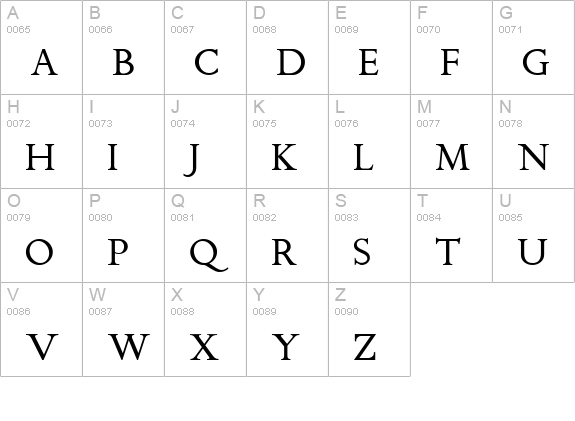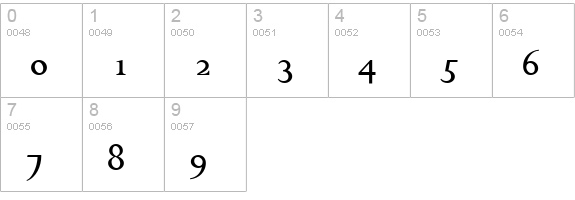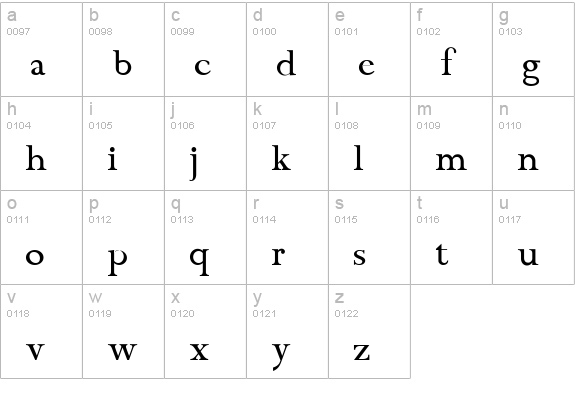
Chanticleer Roman NF Font Details
Chanticleer Roman NF is a classic and elegant font that exudes sophistication and timeless charm. Its clean lines and graceful curves make it perfect for a wide range of design projects, from invitations to branding to editorial layouts. The versatility of this font allows it to seamlessly blend into any design aesthetic, adding a touch of refinement and style. What sets Chanticleer Roman NF apart is not just its beauty, but also the fact that it is available for free download at FontsMarket.com. This means that you can easily access and use this stunning font in your projects without any cost, making it an ideal choice for designers looking to elevate their work without breaking the bank. Whether you're working on a wedding invitation, a logo design, or a magazine layout, Chanticleer Roman NF is sure to bring a touch of elegance and sophistication to your project. Download it for free today and see for yourself the impact that this beautiful font can have on your designs.